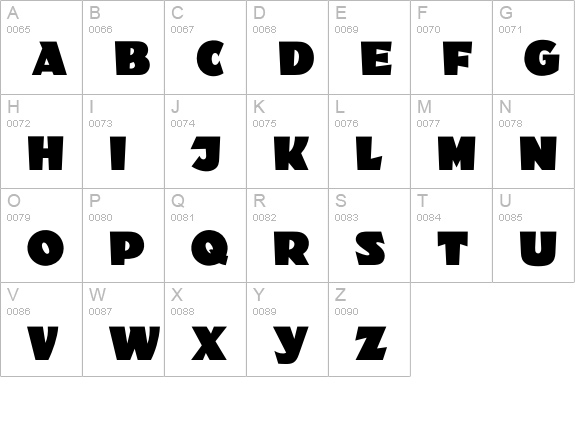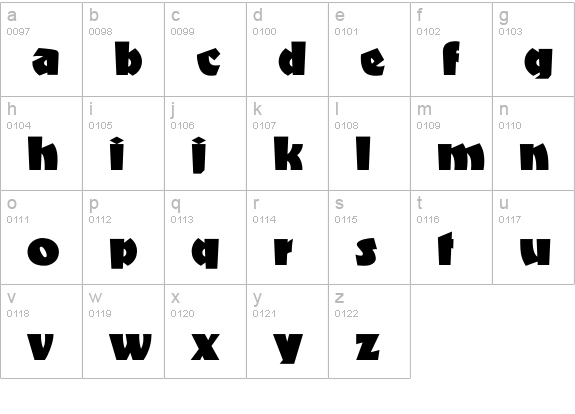
Bravour Font Details
Bravour font is a striking and elegant typeface that exudes confidence and sophistication. With its sleek lines and modern design, Bravour is perfect for adding a touch of finesse to any project. Whether you're creating a logo, designing a website, or crafting a printed piece, Bravour will make a bold statement that is sure to impress. What makes Bravour font even more appealing is that it is available for free download at FontsMarket.com. This means that you can easily access this stylish font and incorporate it into your designs without any cost. Don't miss out on the opportunity to enhance your projects with Bravour font - download it today and elevate your work to the next level.